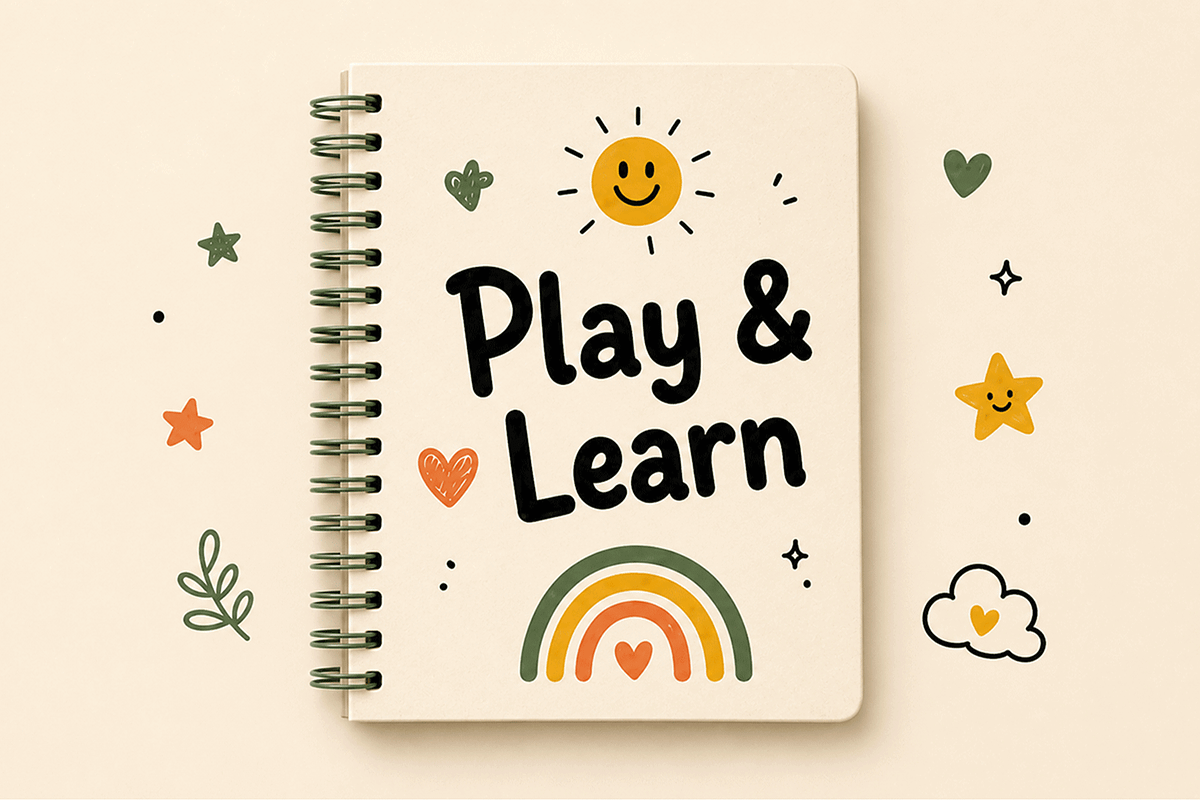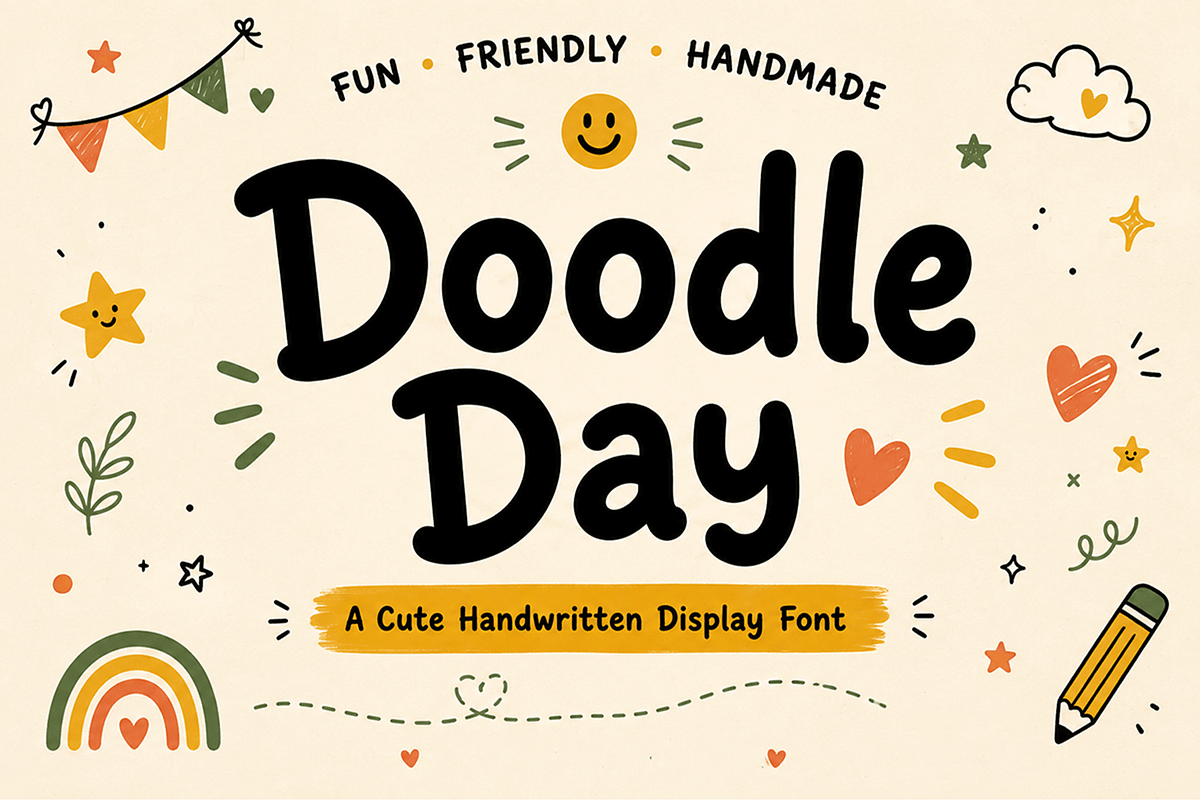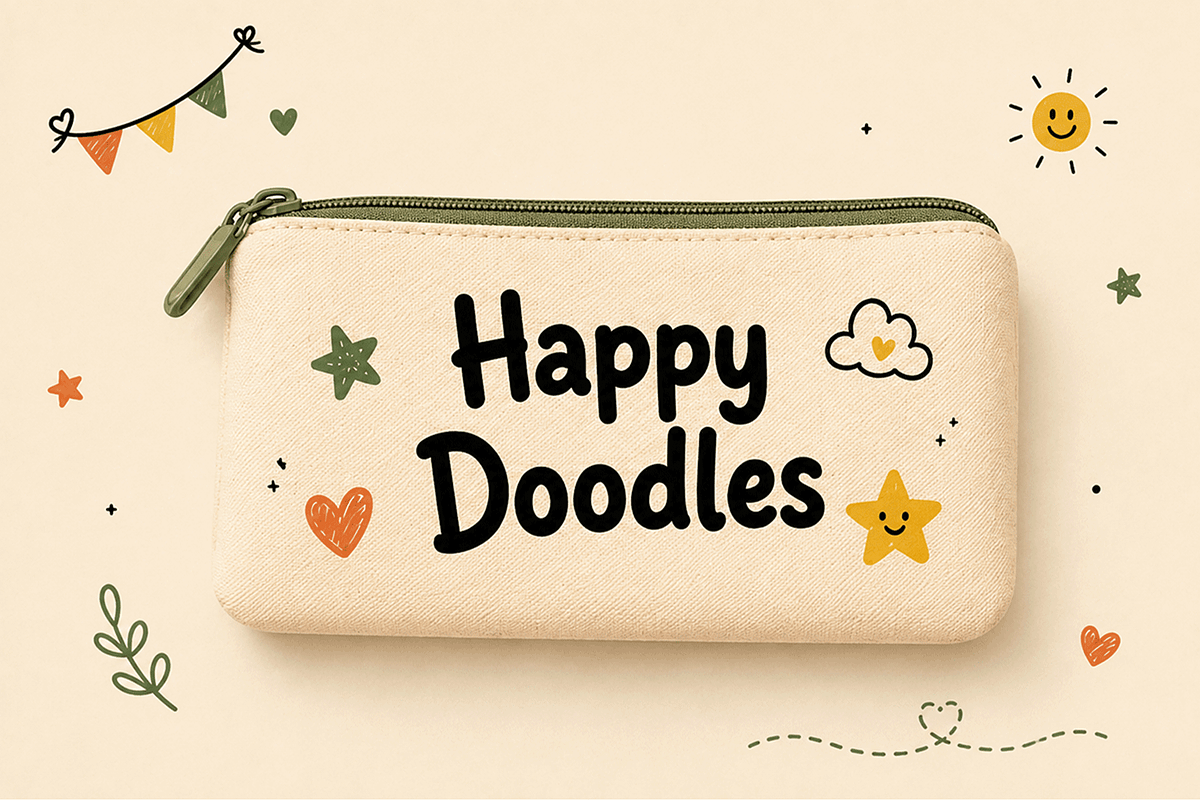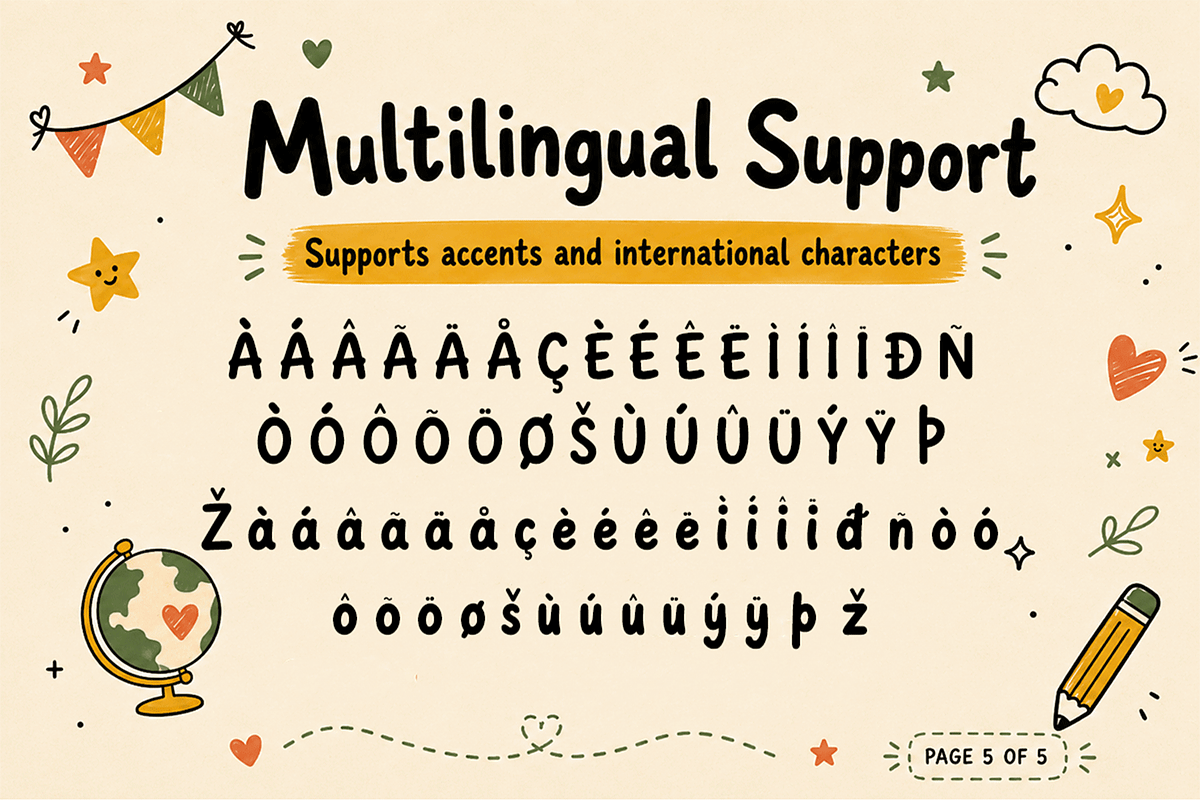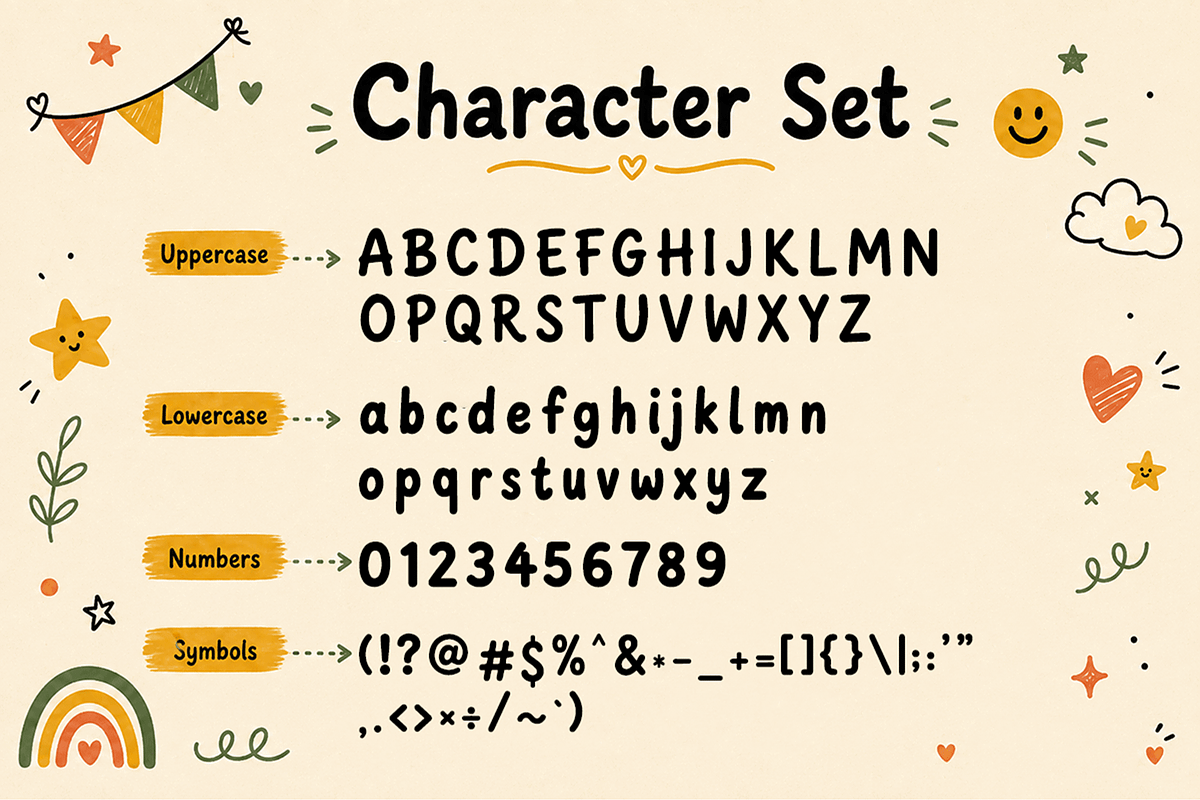
Doodle Day - Cute Handwritten Font
Doodle Day - Cute Handwritten Display Font
Meet "Doodle Day," a cute handwritten display font designed with soft shapes, playful proportions, and a warm handmade personality. Inspired by doodles, notebooks, classroom sketches, and cheerful everyday creativity, Doodle Day brings a friendly and approachable character to every word.
Doodle Day works especially well for kids’ products, stationery, worksheets, classroom decorations, craft projects, birthday designs, journals, cute merchandise, and family-oriented branding. Its relaxed personality makes it an excellent choice whenever your typography needs to feel personal, cheerful, and full of imagination.